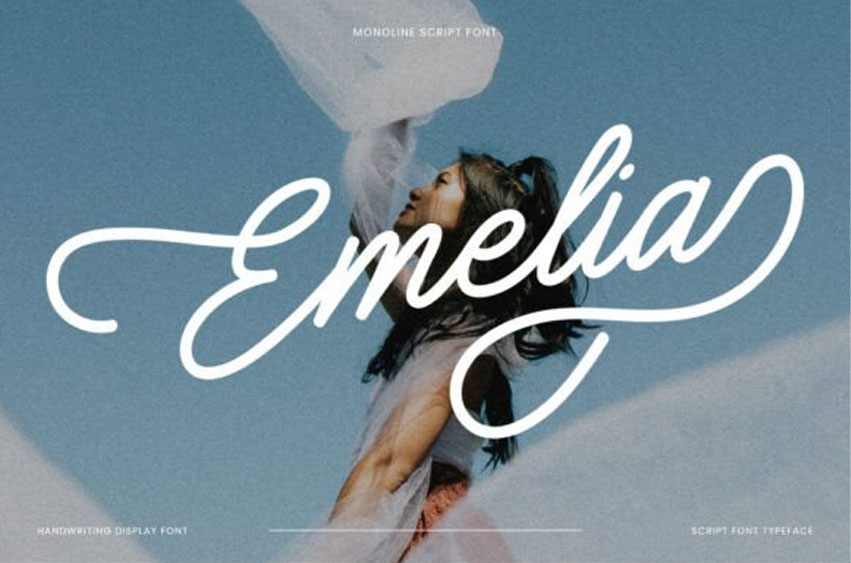
Emelia Font is a charming monoline script font that captures the beauty of hand-lettered elegance. With smooth curves and flowing strokes, it’s perfect for wedding invitations, photography logos, feminine branding, quotes, and lifestyle content.
The consistent line weight gives it a clean and modern look, while the handcrafted style adds warmth and personality. Comes in OTF & TTF formats with multilingual support.